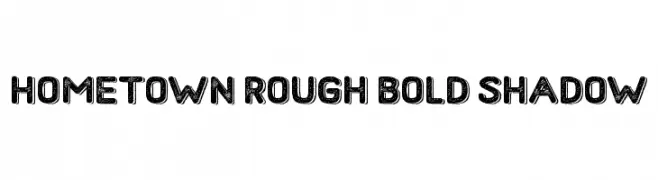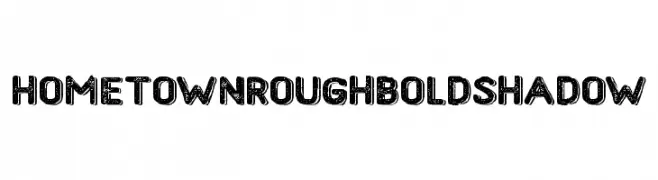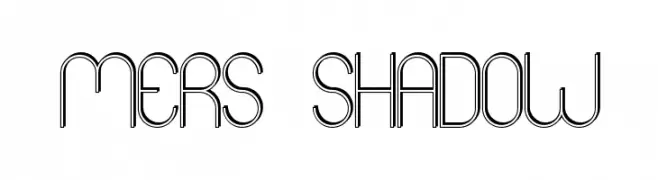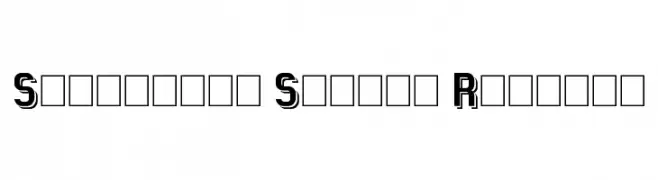
( Fonts by Cannot Into Space Fonts )
A playful, hand-drawn font with a bold shadow effect for a 3D look.
( Fonts by Cannot Into Space Fonts )
A bold, shadowed, and slightly italicized font with a playful and dynamic style.
A bold, geometric font with a vintage shadow effect.
( Fonts by fey design )
A bold, rough-textured font with shadow effects, perfect for vintage-themed designs.
( Fonts by fey design )
A bold, rough-textured font with a vintage shadow effect.
A bold, shadowed font with an organic, textured appearance.
A bold, playful font with a shadow effect for added depth.
A modern, geometric font with a double-line shadow effect.